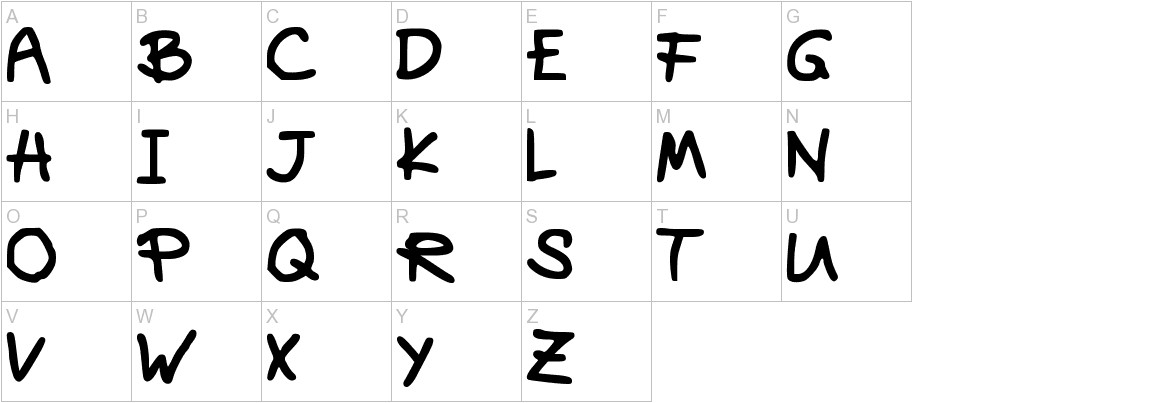
Primrose
So, I came to really love roses. And Cath Kidston's designs were real eye candy to me, and that led me to creating Primrose.
Primrose includes flower doodles (from Doodles) and a carefree-styled A-Z, 0-9, and basic punctuation marks.
Come back to spring with Primrose!